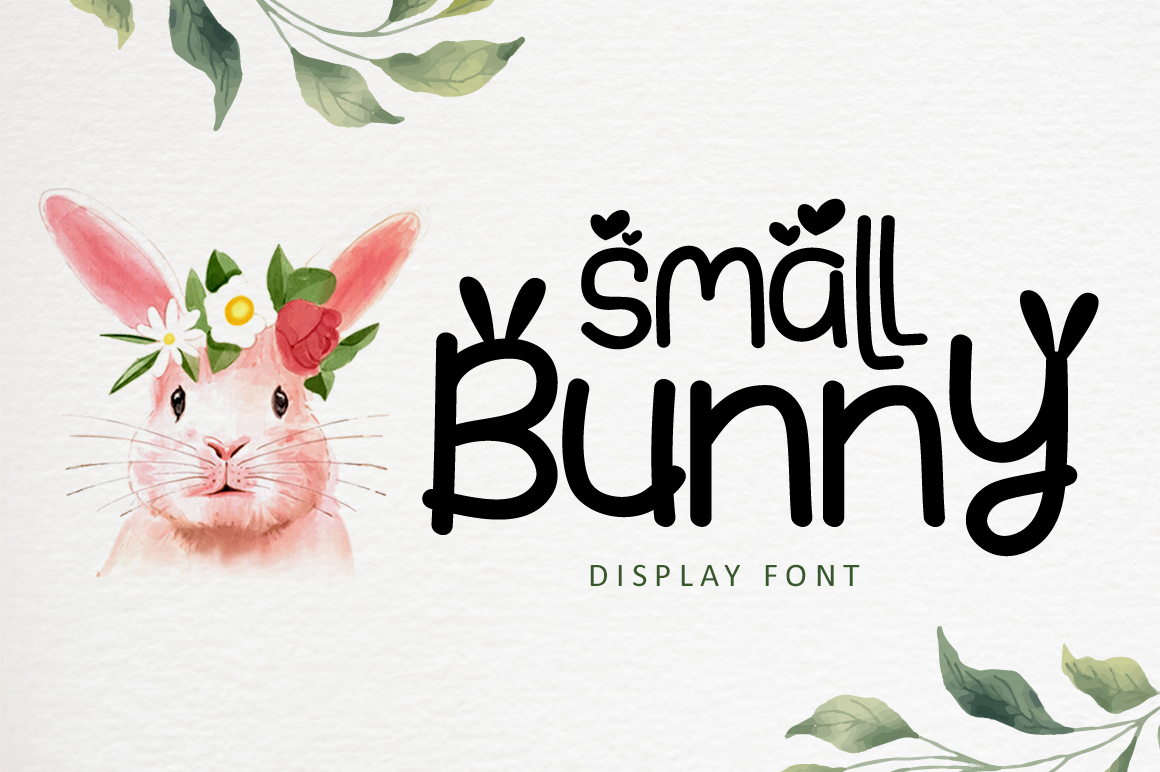
Small Bunny - Display Font
Hello, Happy to share our new fonts "Small Bunny" is a cute and fun display font with a modern feel. Get inspired by its unique charm, and turn any design idea into a true standout.